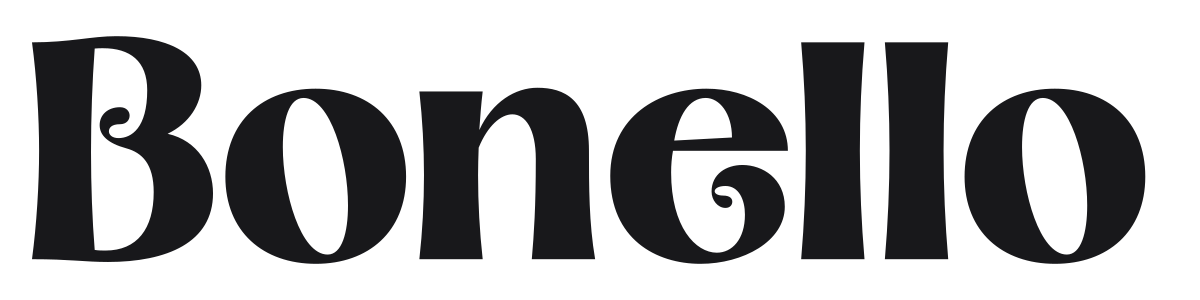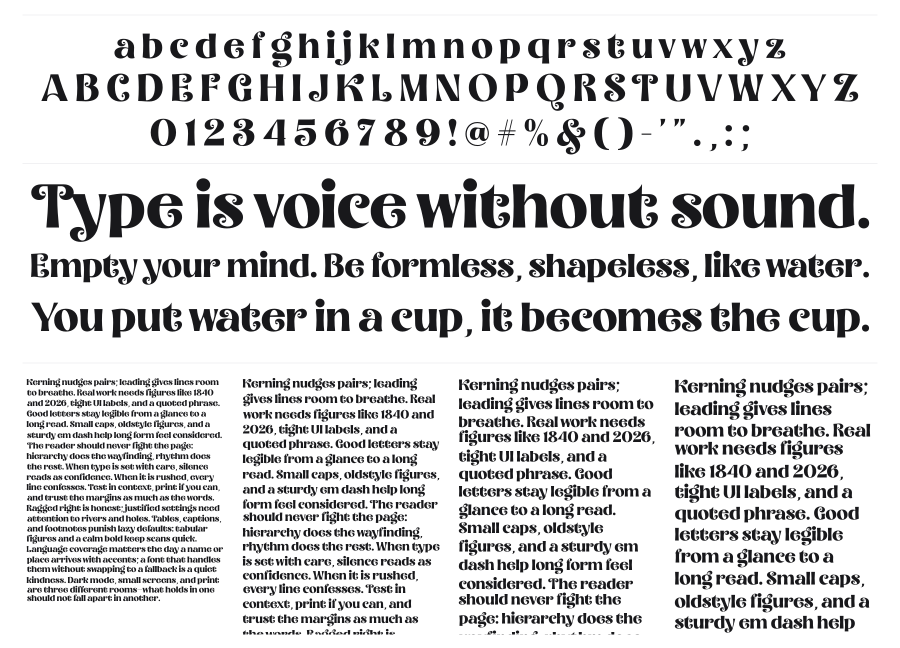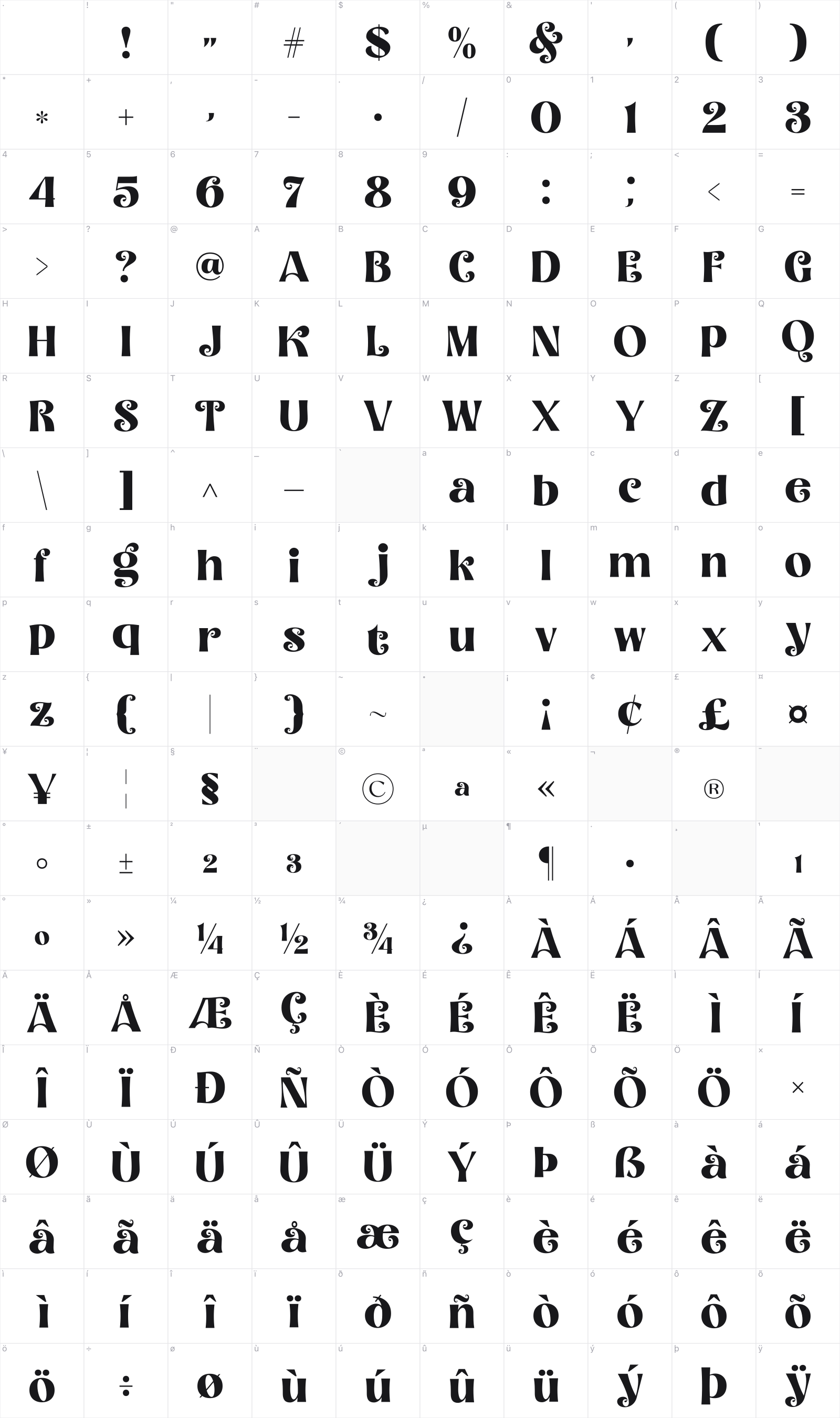
Bonello
Bonello is a bold decorative serif loaded with curling terminals and swash-inflected strokes that give it an unmistakable Art Nouveau energy. The extreme stroke contrast between fat stems and hairline thins makes it read as both luxurious and playful at headline sizes. It belongs on beauty packaging, editorial covers, and wedding invitations where personality is the whole point.